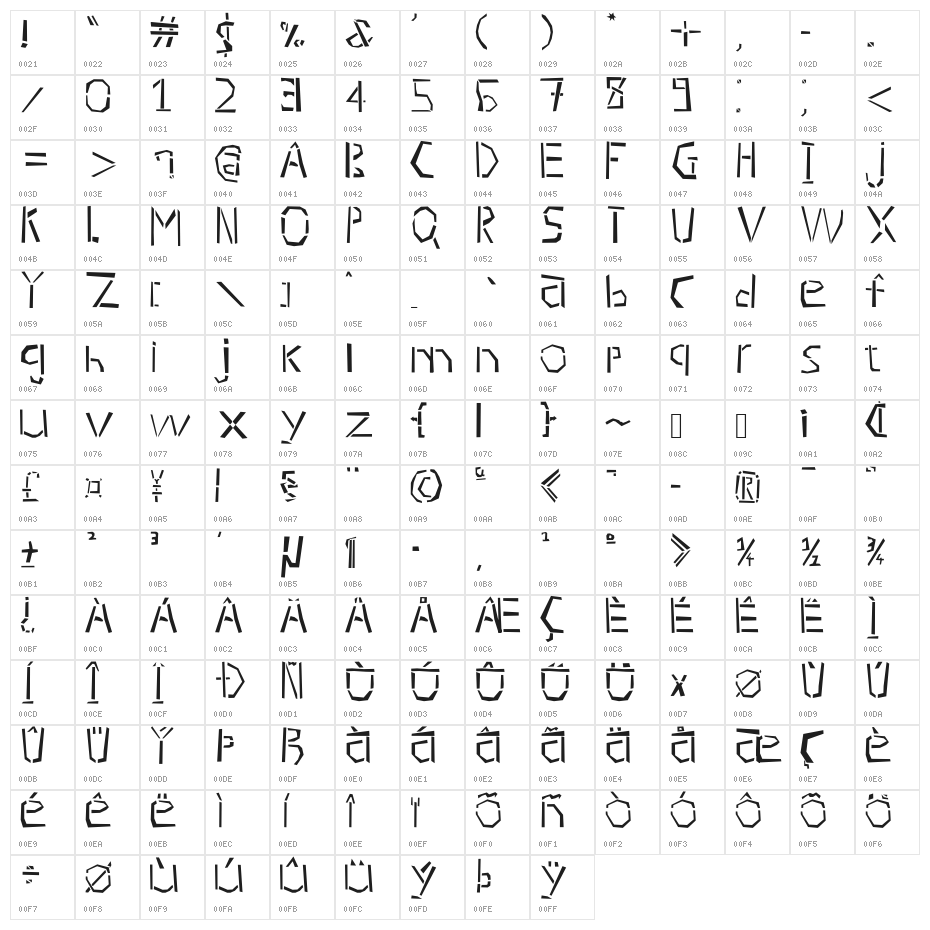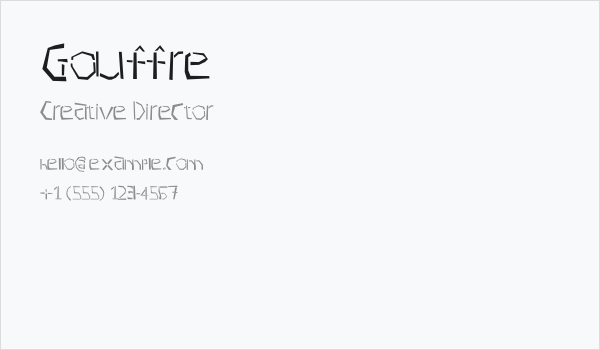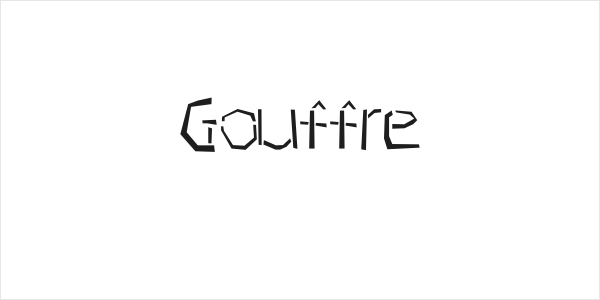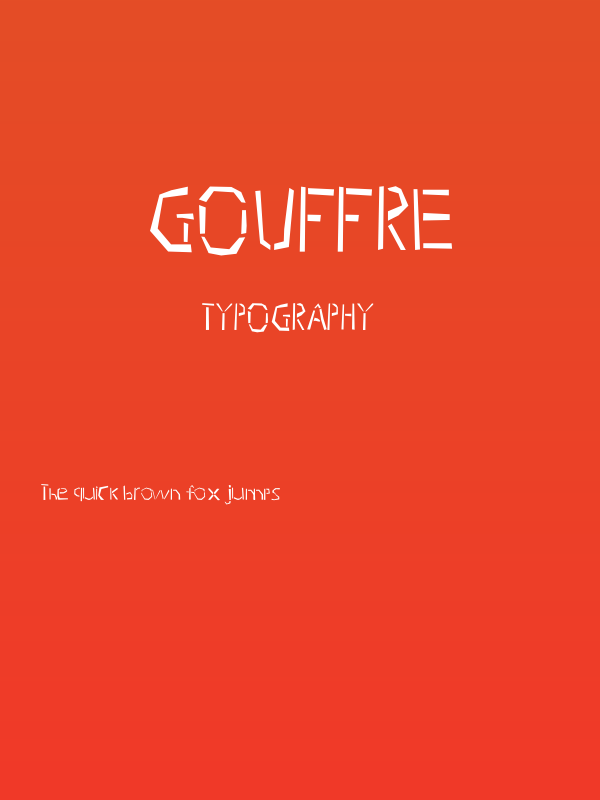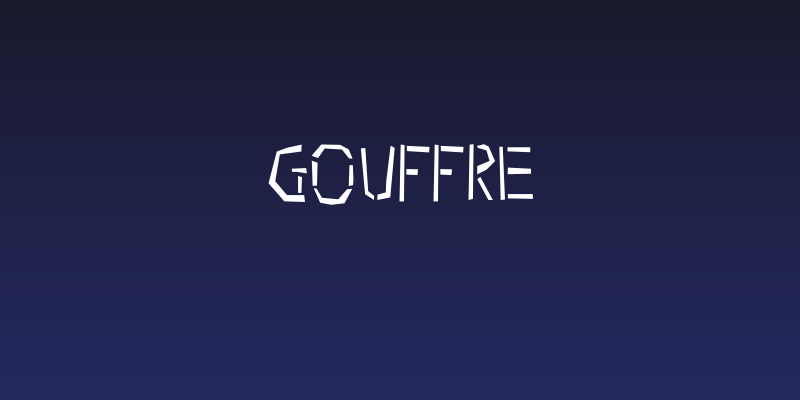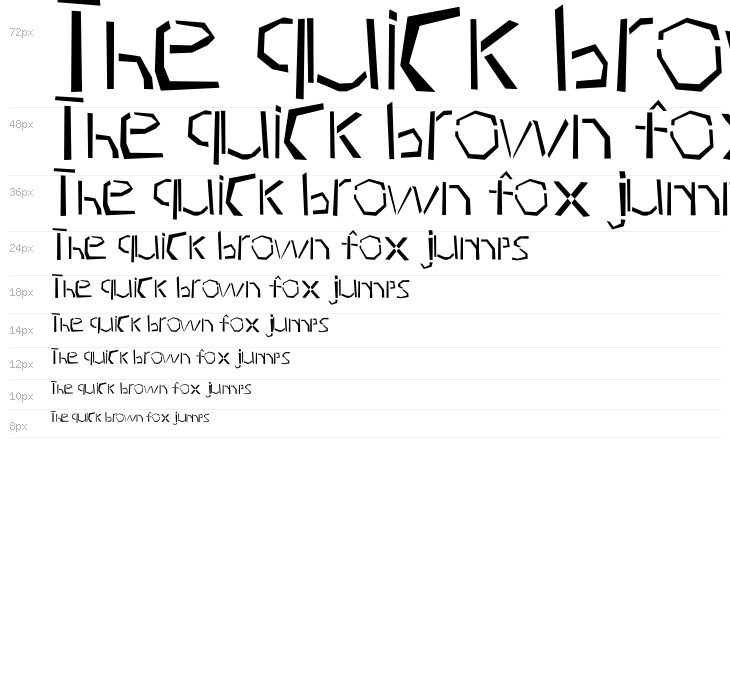
Gouffre Font
Gouffre Description
This font features a highly geometric and angular design, characterized by sharp edges and a bold presence. The letters are constructed with a series of straight lines and acute angles, giving it a futuristic and edgy appearance. The uppercase and lowercase letters maintain a consistent style, with the lowercase being slightly more compact. Numbers and special characters follow the same angular theme, ensuring uniformity across all glyphs. The font's unique style makes it stand out, ideal for projects that require a modern and unconventional look.
| Proposed Projects | Ideal for sci-fi themed designs, modern branding, posters, and digital artwork. |